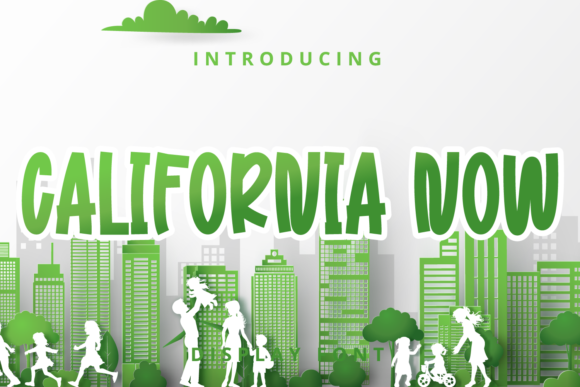
Welcome to the world of California Now, a delightful display font that will ignite your creativity and add a touch of playful charm to your designs. Immerse yourself in the joyful spirit of this font, perfect for capturing the essence of baby showers, whimsical invitations, eye-catching social media posts, and heartwarming greeting cards.
Express your heartfelt emotions with California Now, a font that dances across the page with its cheerful letterforms. Its playful curves and energetic strokes create a sense of exuberance that will captivate your audience. Whether you're a seasoned designer or just starting your creative journey, California Now is your perfect companion.
Experience the magic as California Now transforms your words into works of art. Each character dances and twirls, carrying your message with a sense of joy and celebration. Dive into a world of endless possibilities, where your imagination takes center stage and your designs come to life with a vibrant glow.